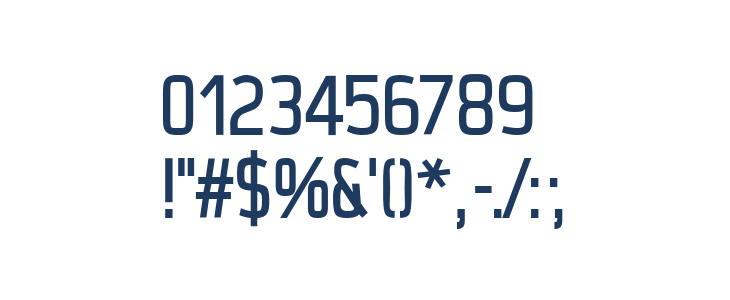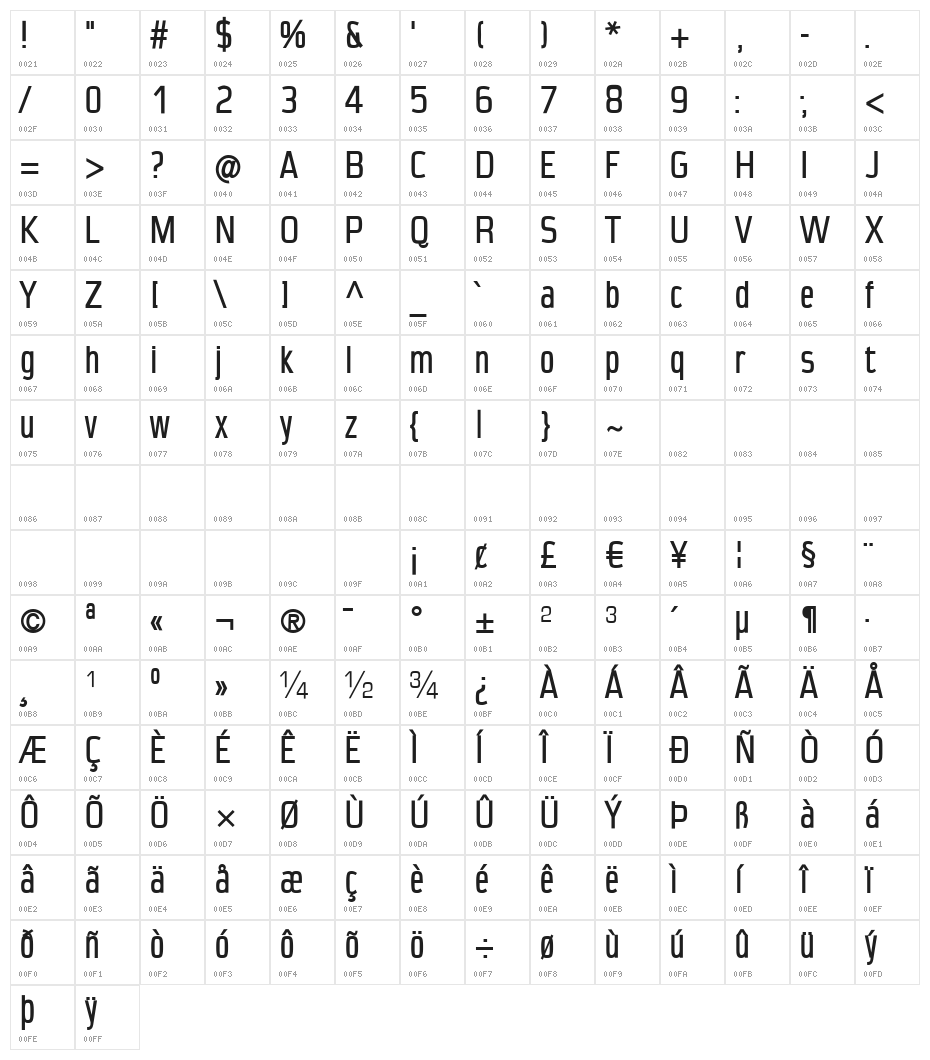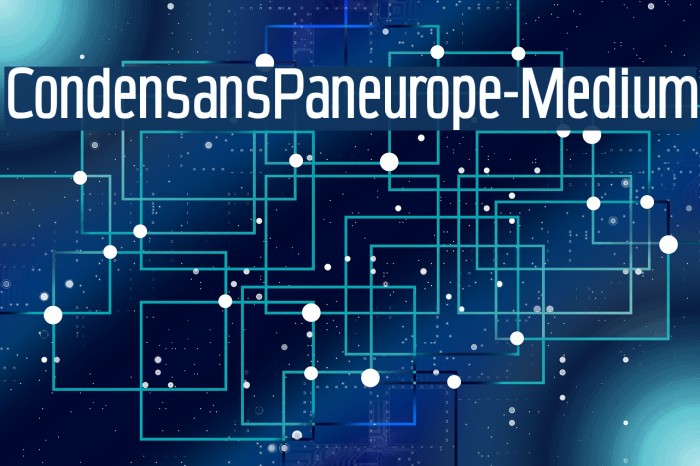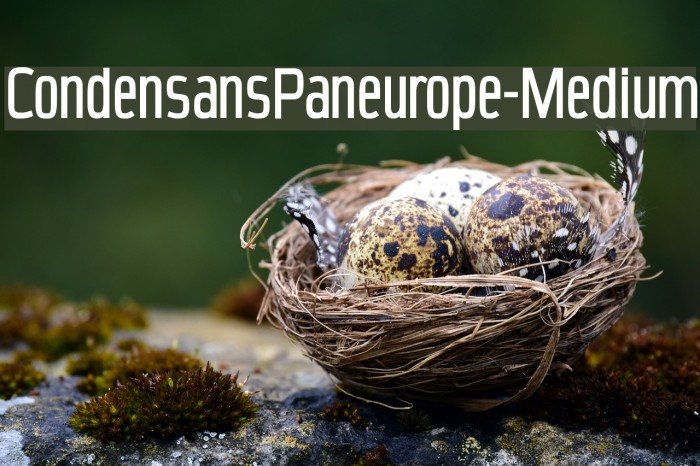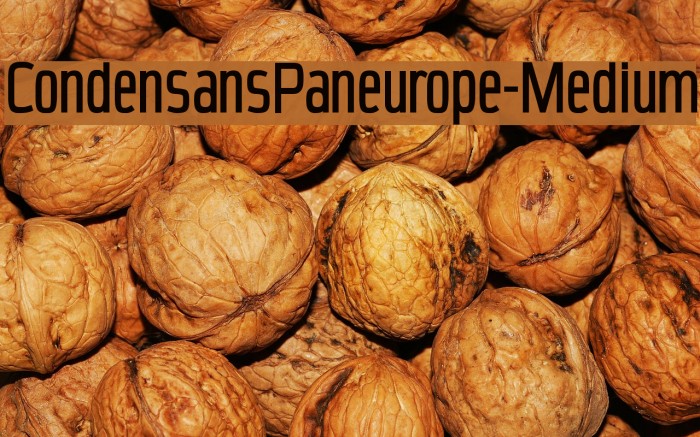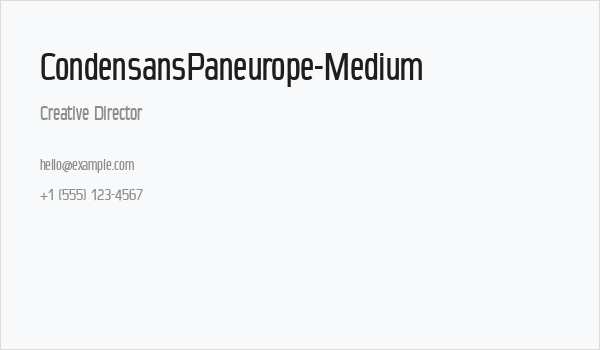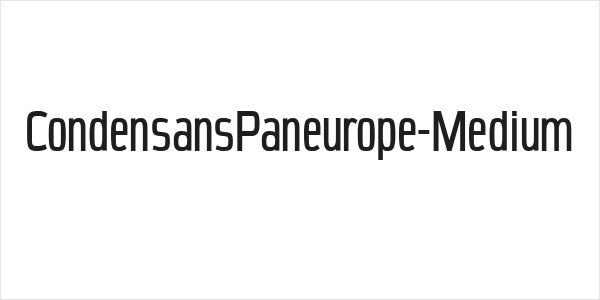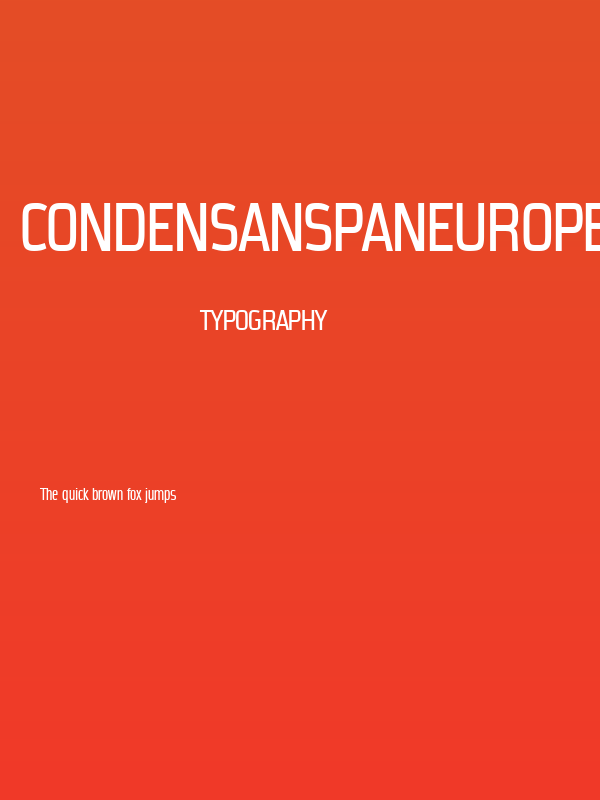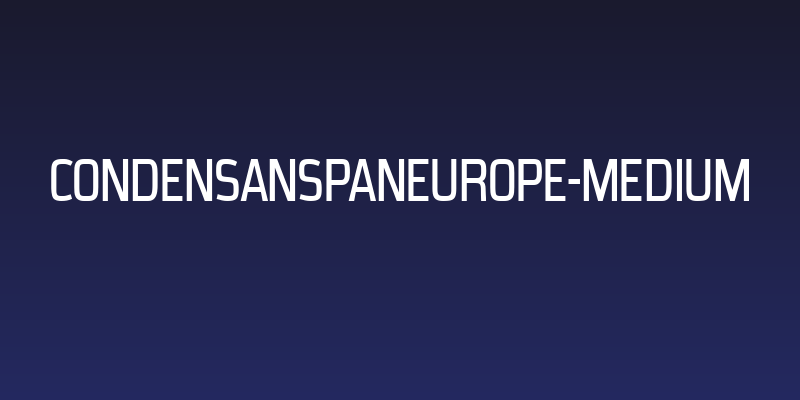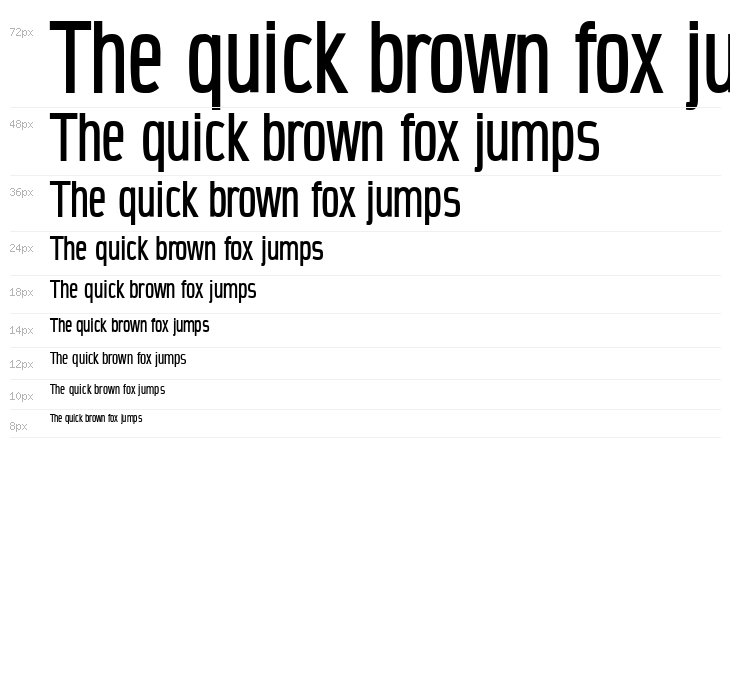
CondensansPaneurope-Medium Font
CondensansPaneurope-Medium Description
This font features a modern, clean sans-serif style with a condensed width, making it ideal for maximizing space while maintaining readability. The characters are uniformly structured with a consistent stroke width, providing a sleek and professional appearance. The uppercase letters are tall and narrow, while the lowercase letters maintain a similar proportion, ensuring a cohesive look across different text sizes. The numerals are clear and distinct, matching the overall aesthetic of the alphabet characters. Special characters are well-defined, adding versatility to the font's use. The font's design is suitable for both digital and print media, offering a contemporary feel that can enhance various design projects.
| Use Case | Headlines, Branding, Editorial Design |
| Proposed Projects | Ideal for branding, advertising, headlines, and editorial design where space is limited but clarity is essential. |